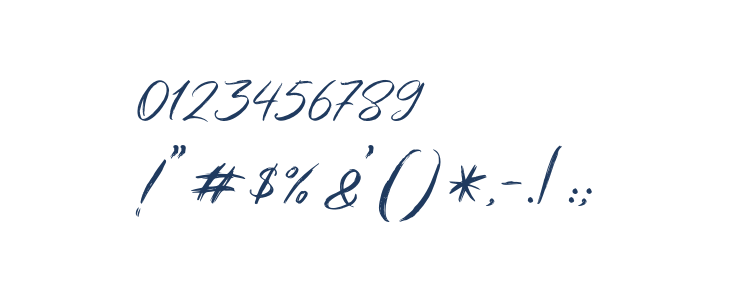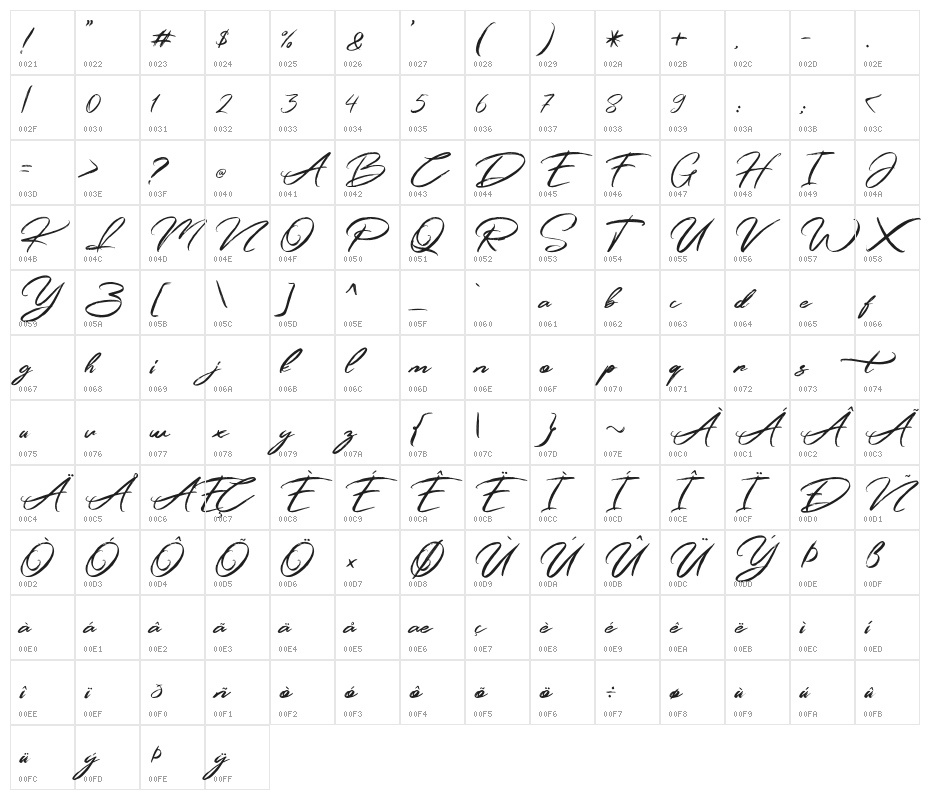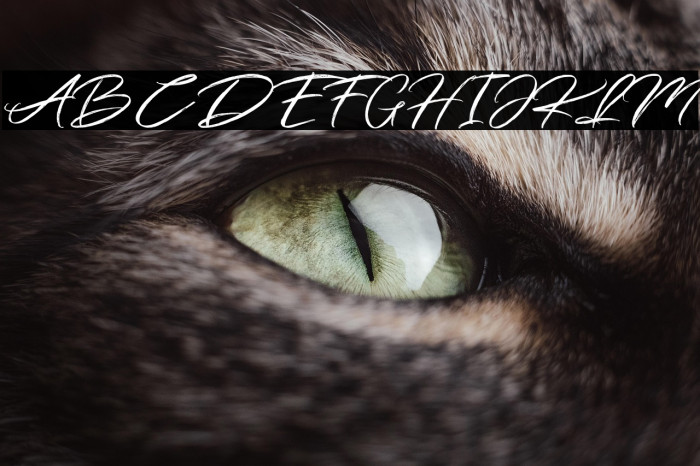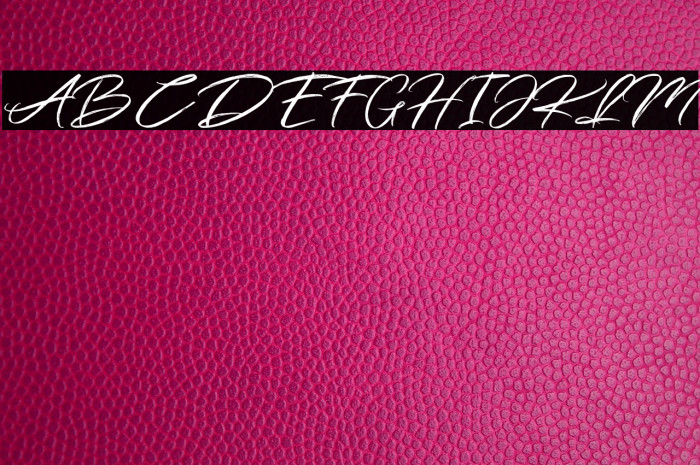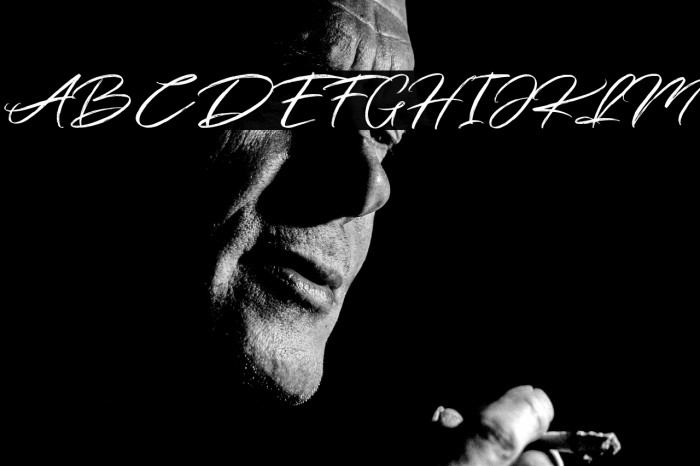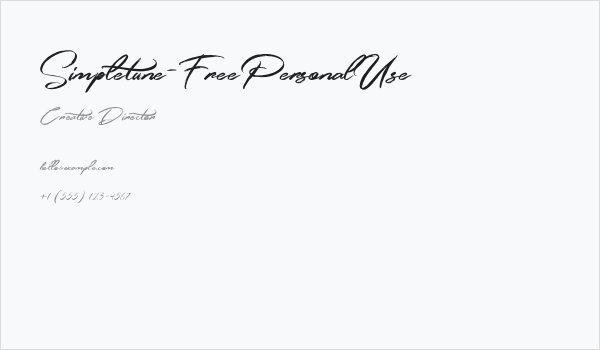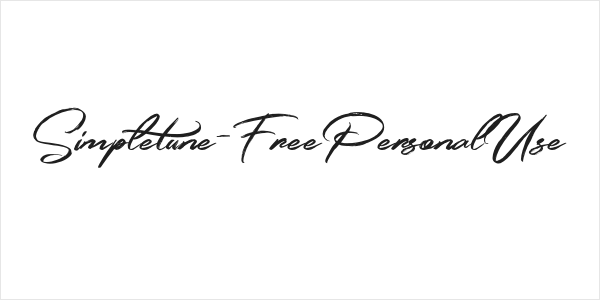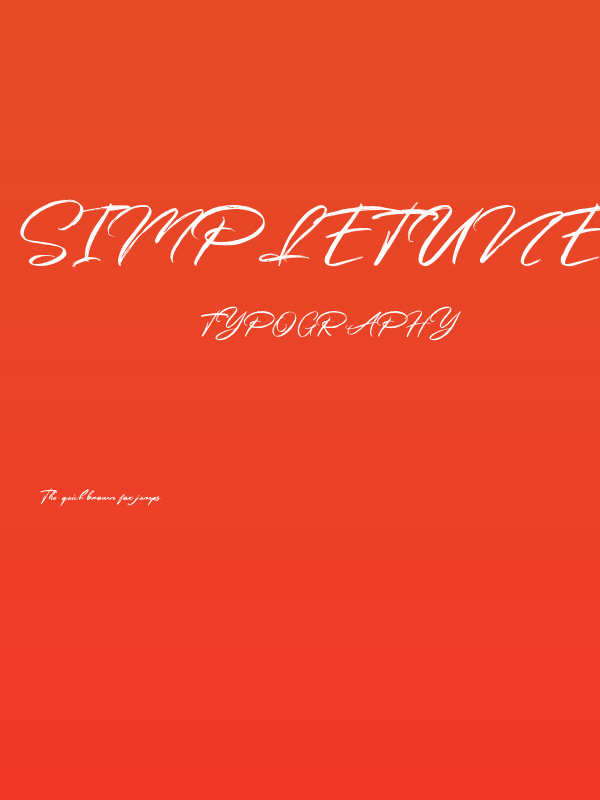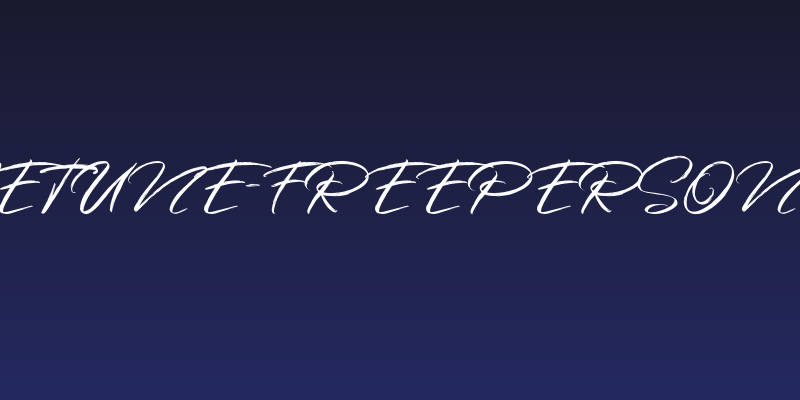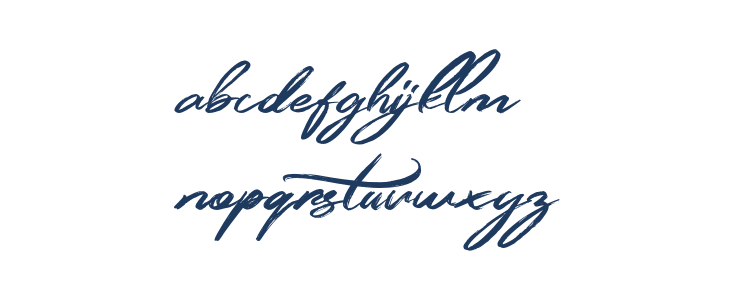
Simpletune-FreePersonalUse Font
Simpletune-FreePersonalUse Description
This font features an elegant and flowing script style, characterized by its cursive and calligraphic elements. The uppercase letters are gracefully elongated with sweeping curves, while the lowercase letters maintain a consistent fluidity, enhancing the overall aesthetic. The numerals and special characters are designed to complement the script, maintaining the same artistic flair. The strokes vary in thickness, adding a dynamic contrast that enhances readability while preserving the decorative nature of the font. This style is reminiscent of classic handwritten scripts, offering a touch of sophistication and elegance.
| Proposed Projects | Ideal for wedding invitations, greeting cards, branding, and elegant logo designs. |